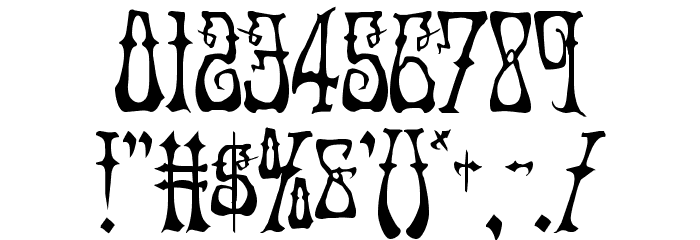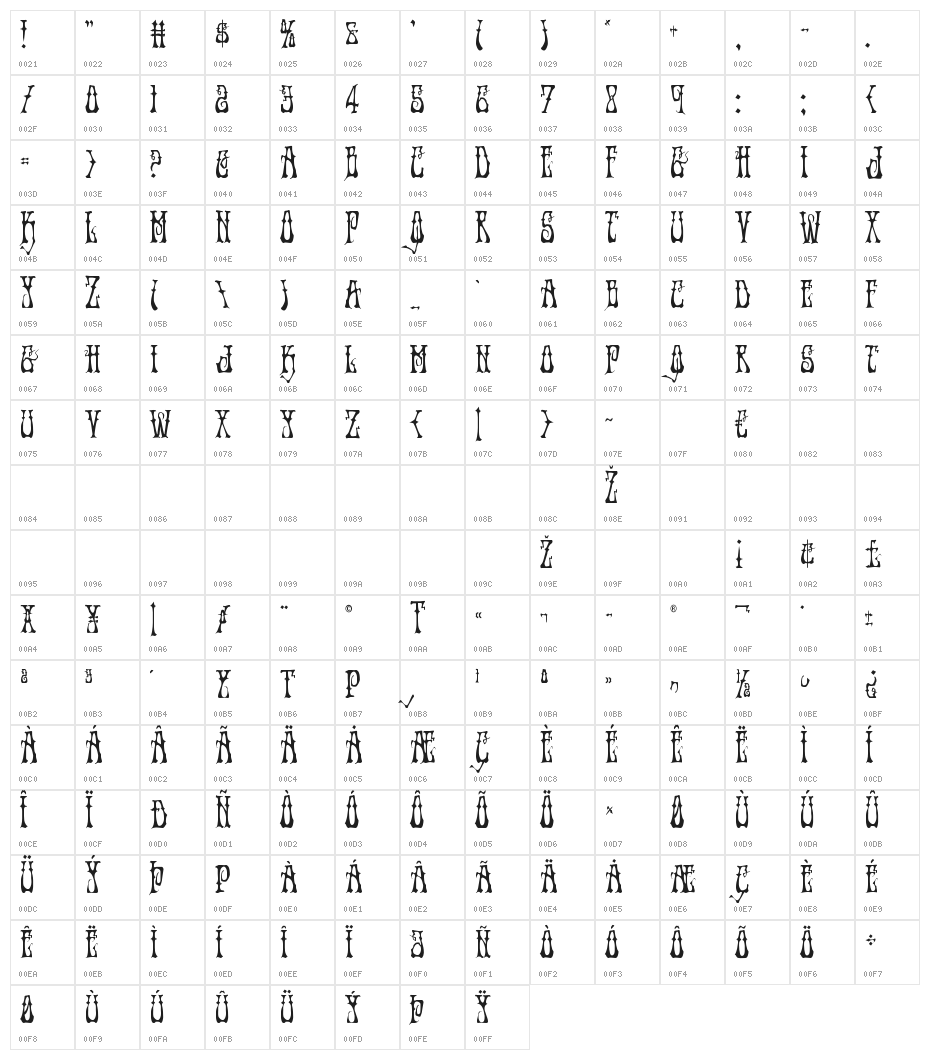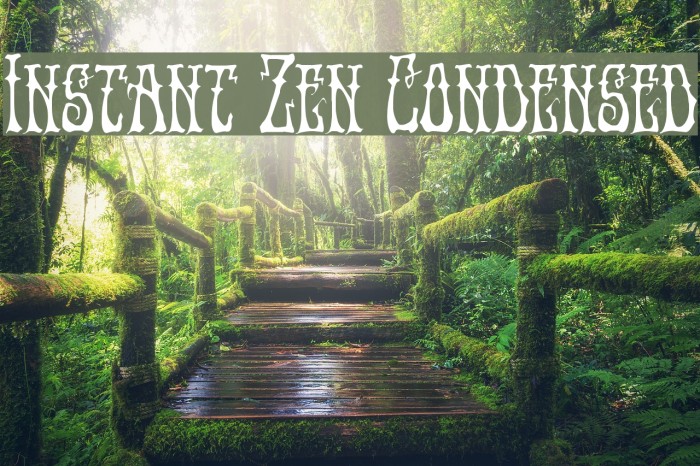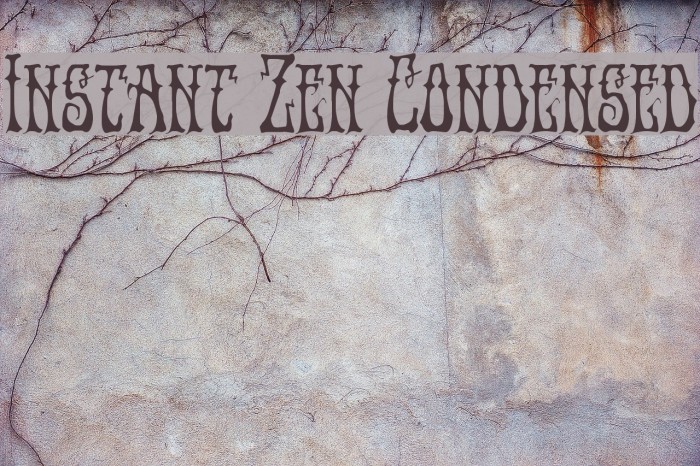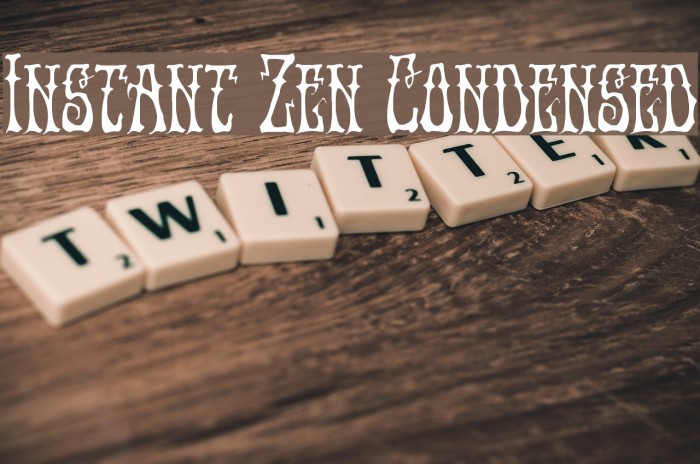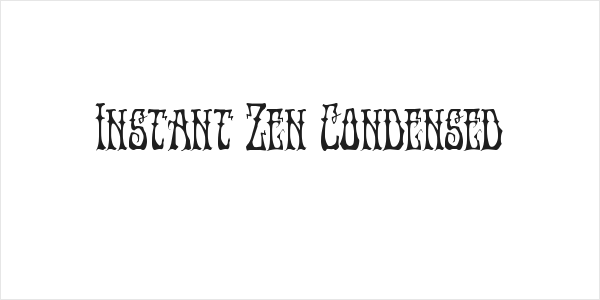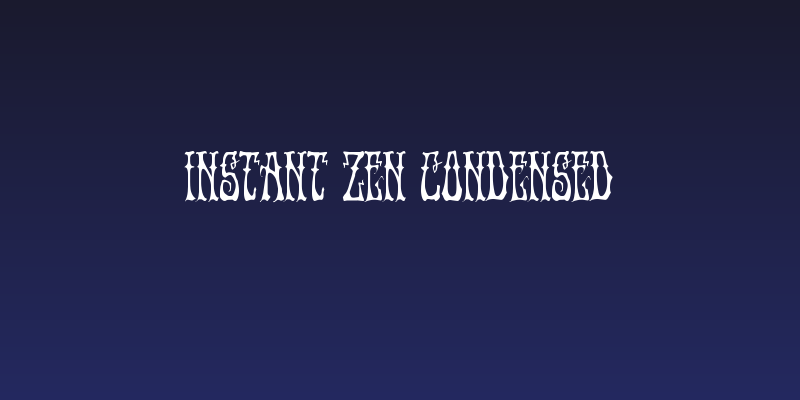
Instant Zen Condensed Font
Instant Zen Condensed Description
This font features a highly decorative and artistic style, characterized by its intricate and swirling details that give it a unique and eye-catching appearance. The letters are condensed, with a tall and narrow form that emphasizes verticality. The strokes are bold and have a high contrast, with thick and thin elements creating a dramatic effect. The overall design is reminiscent of vintage or gothic styles, with an ornate flair that makes it suitable for creative and expressive projects. The special characters and numbers maintain the same decorative quality, ensuring consistency across all elements.
| Proposed Projects | Ideal for use in posters, album covers, branding for artistic ventures, or any project requiring a bold and unique visual impact. |